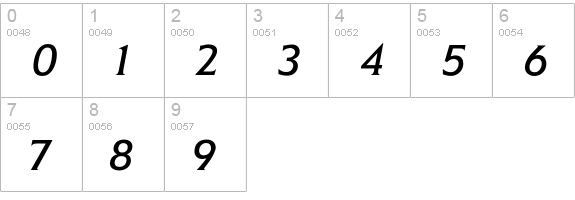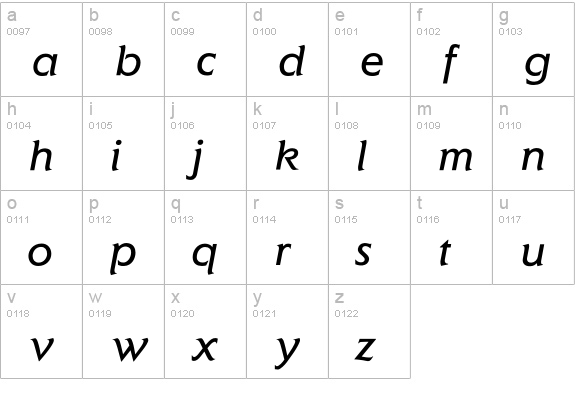
ElanBookItalic Font Details
ElanBookItalic font is a stylish and elegant typeface that exudes sophistication and creativity. Its sleek italic design adds a touch of flair to any project, making it perfect for both professional and personal use. The flowing curves and unique letterforms of ElanBookItalic font make it stand out from the crowd and draw attention to your text. What makes ElanBookItalic font even more appealing is that it is available for free download at FontsMarket.com. This means that you can easily access and use this beautiful font in your designs without any cost. Whether you're creating a logo, designing a website, or working on a print project, ElanBookItalic font is a versatile choice that will elevate your work to the next level. Download ElanBookItalic font today from FontsMarket.com and unleash your creativity with this stunning typeface. Let the beauty and elegance of ElanBookItalic font enhance your designs and captivate your audience.